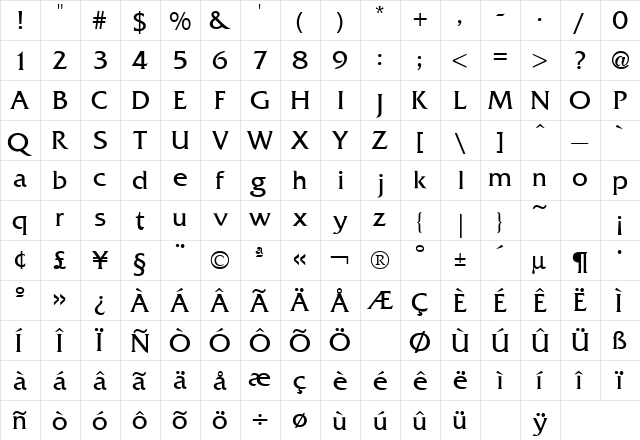
Friz Regular
Design Context for Friz Typeface
Friz takes a measured approach to typography — its balanced proportions and neutral character make it a reliable workhorse for both digital and print work.